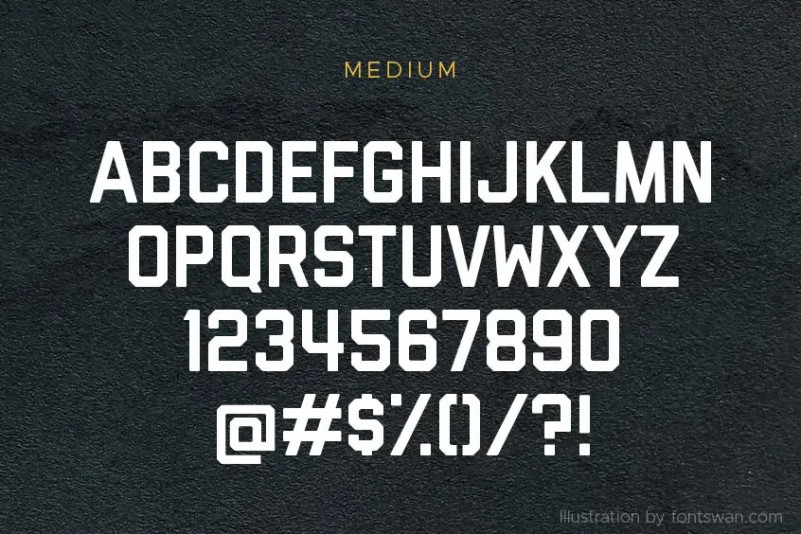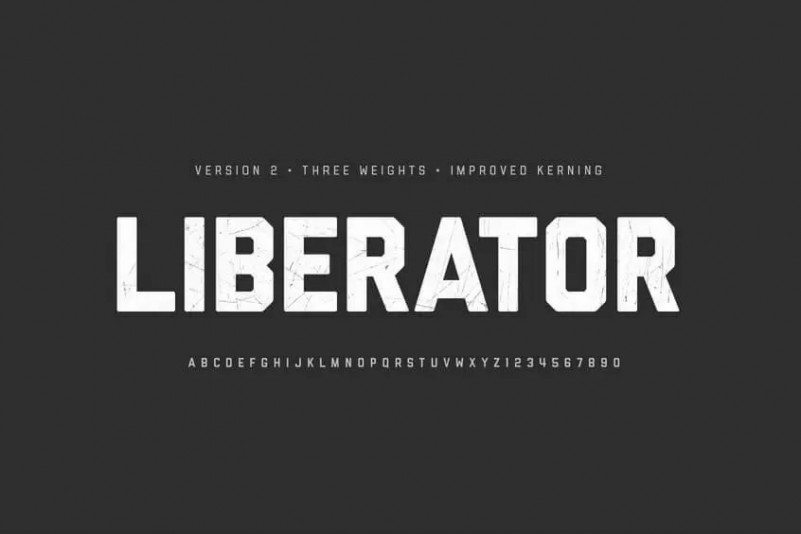
Liberator Font
Liberator Display Font is a solid display typeface that has an awesome fine texture. Ryan Clark took the charge of designing and releasing it for the first time in 2011. After that, Adobe Systems Incorporated hold all right reserved for this font. Because this elegant font has all the basic standard features that need for professional work. That’s why you will see this elegant font has most of the time used in professional work.
Liberator Font has available in a regular style along with OTF and TTF file format. This single weight has more than 120 characters including uppercase, lowercase, marks, and numbers as well. So, definitely, it can cover the whole design without further font help. With this amazing typeface, you can create book covers, unique emblems, game graphics, product designs, special event cards, as well as many other places.